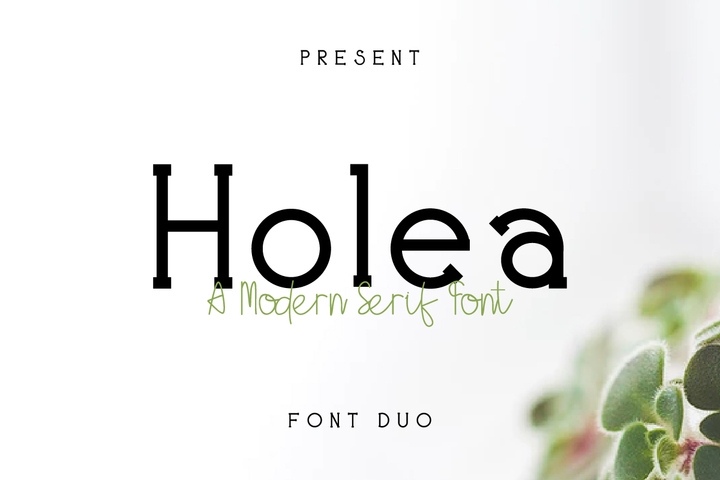
Holea Font
Holea Font is perfect for wellness brand logos, spa and retreat signage, mindfulness app interfaces, yoga studio branding, holistic health materials, meditation center advertising, natural product packaging, spiritual guidance publications, peaceful event invitations, and serene lifestyle magazines.
What makes Holea Font so exciting is its remarkable ability to embody perfect balance and inner harmony through letterforms that seem to radiate tranquility and spiritual completeness. This enlightening typeface captures the essence of wholeness and mindful living with characters that flow like gentle breath and create visual spaces for contemplation and peace. The font's harmonious design elements perfectly represent themes of healing, balance, and spiritual journey, making it an indispensable choice for brands and projects that guide people toward greater well-being and authentic self-discovery.
Holea Font comes in multiple font families including Regular, Bold, Light, Italic, Bold Italic, Zen, Flowing, and Meditative variations. Each family member maintains the core wellness characteristics while offering different serenity levels and stylistic approaches to suit various holistic design requirements.
The mindful spacing in Holea Font makes it particularly suitable for wellness industries where creating calm, inviting environments is essential for client comfort and healing. Its balanced letterforms promote easy reading while maintaining the serene atmosphere that appeals to individuals seeking peace, balance, and authentic wellness experiences.
Wellness professionals appreciate how Holea Font transforms ordinary text into gentle invitations to healing and personal growth. The typeface's harmonious character set includes special wellness symbols and peaceful elements that enhance the overall tranquil atmosphere of any wellness-focused project.
For creative professionals serving wellness centers, spiritual organizations, and holistic health brands, Holea Font provides the perfect foundation for establishing memorable visual identities that capture the essential qualities of balance, healing, and spiritual wholeness that define authentic wellness experiences and transformational journeys.